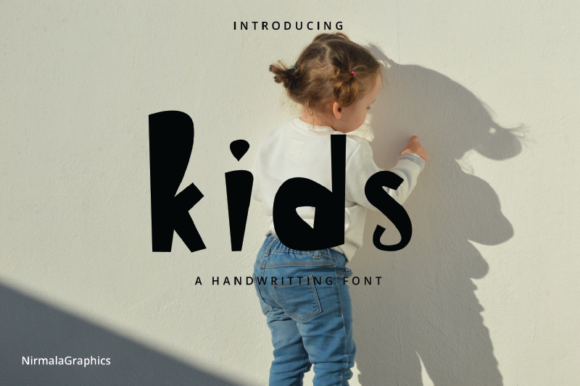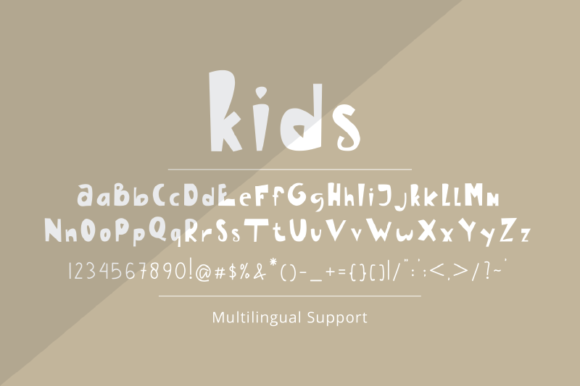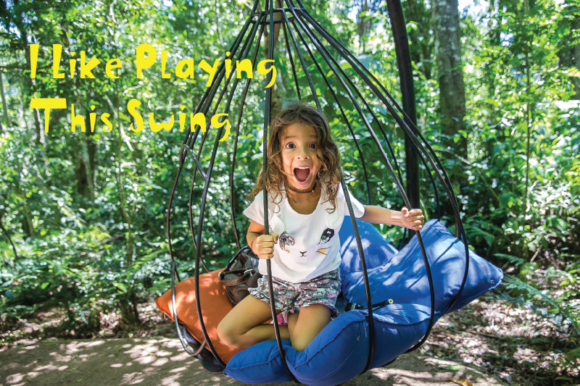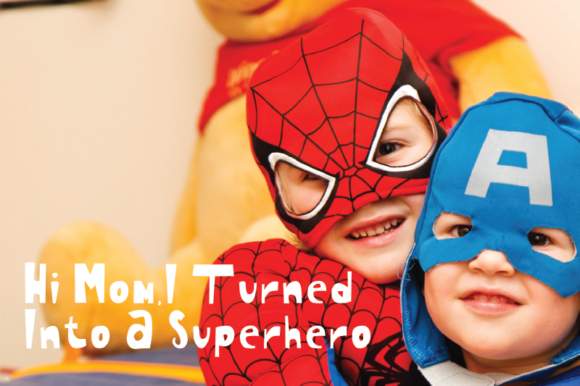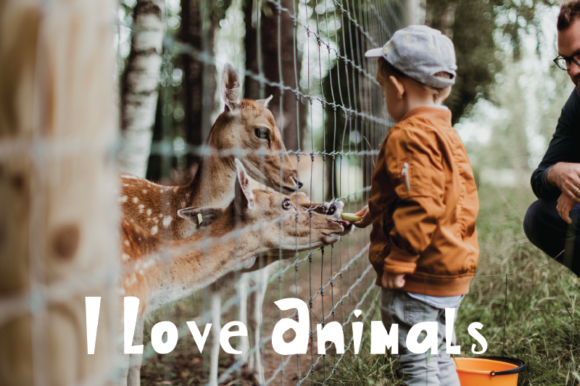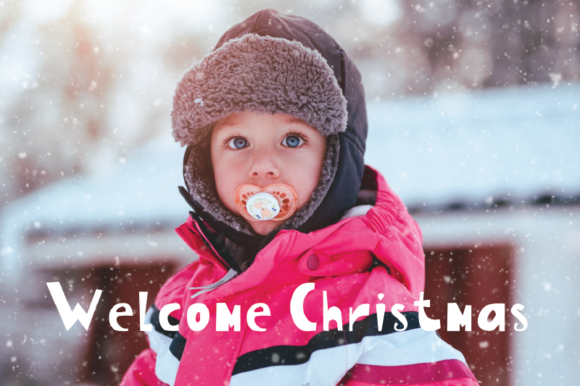
The Magic of Kids Font: Unlocking the Whimsy of Childhood
Who hasn’t sat down with a box of crayons and a blank piece of paper, watching as their child’s imagination comes to life in a burst of color and creativity? It’s a moment we cherish, and one that Kids Font aims to capture in a digital form.
Kids Font is a playful script font that embodies the carefree spirit of childhood. Designed to evoke the joy and wonder of youth, it’s perfect for updating any kids’ craft, from birthday invitations to activity sheets. But its value extends beyond the world of kids’ design – it’s also a valuable resource for designers looking to add a touch of whimsy to their projects.
Kids Font Key Features
- Font Style: Designed specifically for children’s educational materials, this font is playful, yet easy to read.
- Character Set: Includes a comprehensive set of characters, including uppercase and lowercase letters, numbers, punctuation marks, and special symbols.
- Unique Characteristics: Features rounded edges, soft curves, and a child-friendly aesthetic, making it perfect for children’s books, educational materials, and other youth-focused content.
Designer Review: Kids Font
Overall, I think “Kids Font” is a charming and playful font, perfect for designing materials for kids. Here are some of its strengths:
- ✨ The font is highly legible, making it perfect for reading and writing materials.
- ✨ The font’s bold and rounded letters are visually appealing and add a touch of whimsy to any design.
- ✨ The font is highly customizable, with various styles and weights available, making it easy to tailor to your specific needs.
- ⚠️ The font may not be suitable for formal or professional materials, as it can come across as too childish.
- ⚠️ The font’s rounded letters may not be ideal for designs that require sharp, precise lines.
Overall, I think “Kids Font” is a great option for designers looking to create fun and engaging materials for kids. While it may not be suitable for every project, it’s a versatile and customizable font that can add a lot of personality to your designs.
Kids Font is perfect for creating fun and playful designs, such as:
– Children’s party invitations
– Educational materials (e.g., worksheets, posters)
– Kids’ menus and advertisements
Alternatives to “Kids Font” for Designers
Playfair Display is an elegant, high-end serif font suitable for luxury branding, magazines, and high-end packaging. It features intricate details and luxurious feel, perfect for creating a sophisticated and refined atmosphere. Compared to Kids Font, Playfair Display is more formal and sophisticated, whereas Kids Font is playful and informal.
Lato is a clean and modern sans-serif font ideal for digital interfaces, websites, and mobile apps. It’s highly legible and versatile, making it suitable for a wide range of applications. Unlike Kids Font, Lato is more minimalist and modern, while Kids Font is more playful and childlike.
Great Vibes is a beautiful, cursive script font perfect for creating a friendly and approachable atmosphere. It’s ideal for branding, packaging, and editorial design. Compared to Kids Font, Great Vibes is more elegant and refined, whereas Kids Font is more playful and casual.
Alice
Alice is a charming, cursive script font suitable for children’s branding, educational materials, and whimsical designs. It’s highly decorative and playful, making it a great alternative to Kids Font for creating a fun and imaginative atmosphere. However, Alice is more ornate and detailed compared to Kids Font.
The recommended line height for Kids Font in digital applications is 1.2-1.5 times the font size. This will ensure that the text is easy to read and understand. For example, if you’re using a 18-point font size, the line height should be between 21.6 and 27 points.
Q: Is Kids Font available in multiple languages?
Yes, Kids Font is available in multiple languages, including English, Spanish, French, German, and many others. The font is designed to be language-neutral, making it suitable for use in multilingual applications.